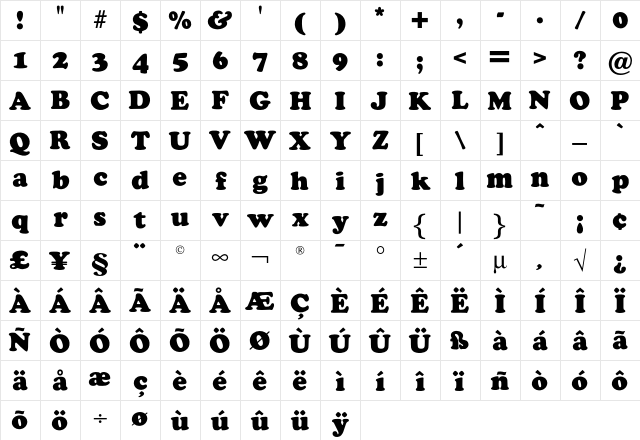
Complete CooperFiveOpti Black glyph index. Displaying only characters natively supported by CooperFiveOpti Black font.
CooperFiveOpti is a composed and adaptable typeface that performs quietly and consistently across a wide range of design contexts.